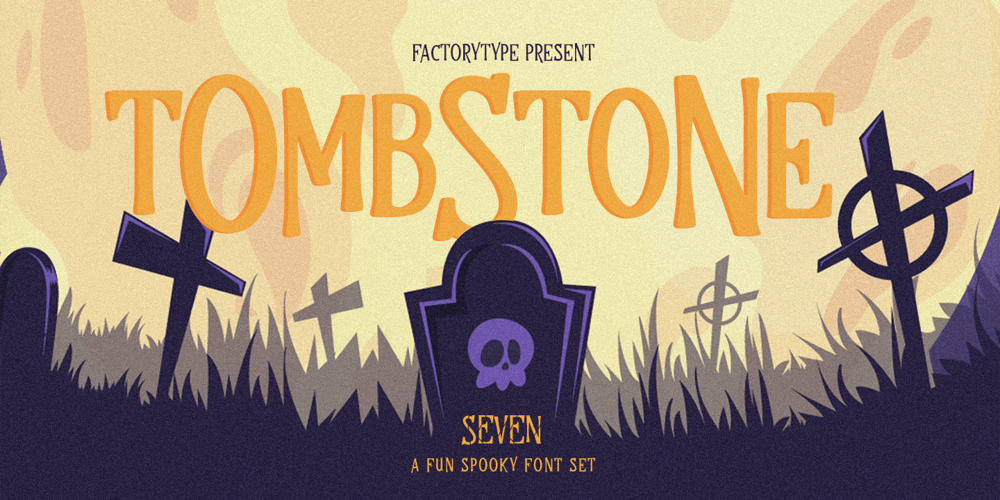
Tombstone Font Family was designed by Wahyu Rahmawan and published by Factory738. Tombstone contains 7 styles and family package options. This year’s Halloween is fast!!!When it comes to Halloween projects, Tombstone is a great. Use its scary atmosphere as a springboard for your Horror project. Numbers, punctuation, and multilingual letters are all included. For whatever your imagination may conjure up, these ligatures will come in handy. 7 Styles Basic Latin A-Z and a-z Numerals & Punctuation Stylistic Ligatures Multilingual Support for ä ö ü Ä Ö Ü … OTF file format Free updates and feature additions Thanks for looking, and I hope you enjoy it.